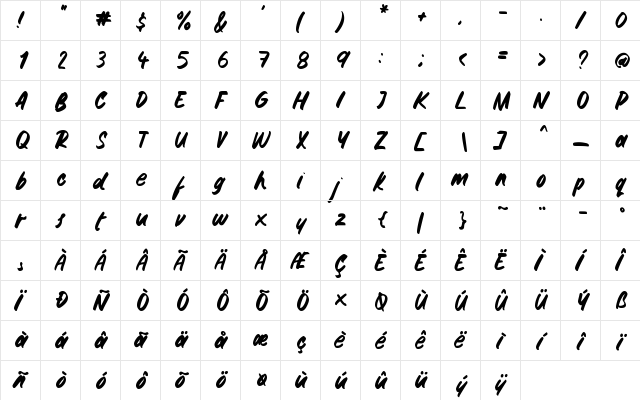
Gemini Brush Regular
| Foundry | Zansari Type |
| Designer | Zaffar Ansari |
Design Context for Gemini Brush Typeface
Gemini Brush flows with the natural rhythm of handwritten lettering, making it ideal for designs that call for warmth and personal expression.
Font Pairing: Combine Gemini Brush with a simple geometric sans for maximum contrast — the tension between flowing curves and clean structure is a classic typographic pairing.
Pro Tip: Use Gemini Brush for short runs of text — names, titles, or taglines. Extended body copy in script faces tires the eye quickly.